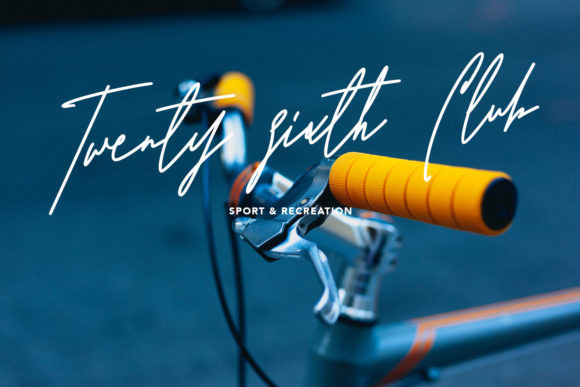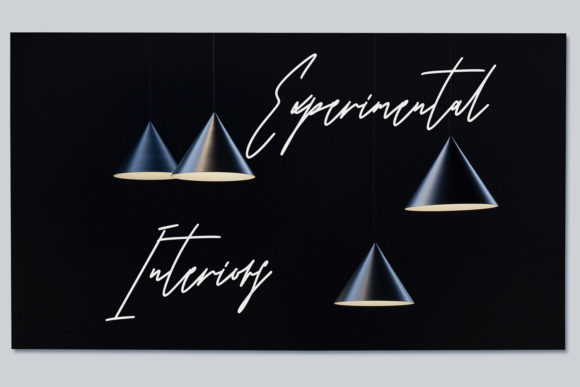
Rillies Font
Rillies is a relaxed yet stunning handwritten font. It looks beautiful on a variety of designs requiring a personalized style, such as wedding invitations, thank you cards, weddings, greeting cards, logos and so on.